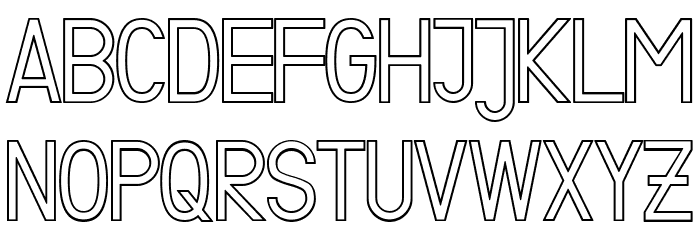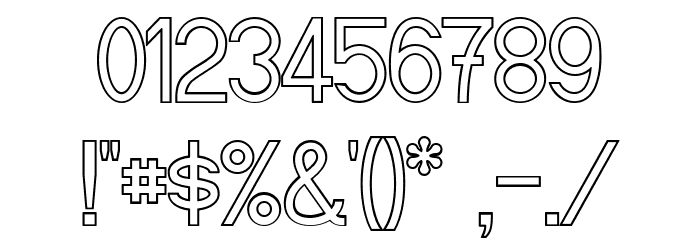
Fibel Sued Kontur Font
This font features a clean, geometric design with a hollow outline style that gives it a modern and airy appearance. The characters are constructed with consistent line thickness, creating a uniform and balanced look. The uppercase and lowercase letters maintain a similar width, contributing to a cohesive visual flow. The numerals and special characters are designed to match the overall style, ensuring versatility across different uses. The font's open structure makes it suitable for projects that require a contemporary and stylish touch.
A modern, geometric outline font with consistent line thickness and open structure.
- Proposed Projects: Ideal for branding, posters, headlines, and digital media where a modern and stylish appearance is desired.